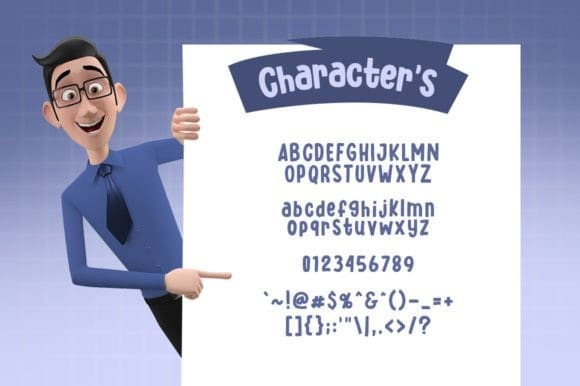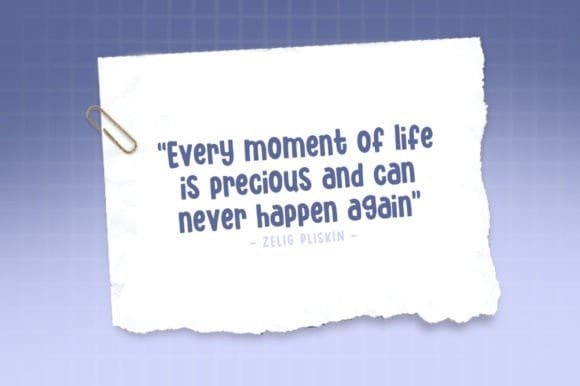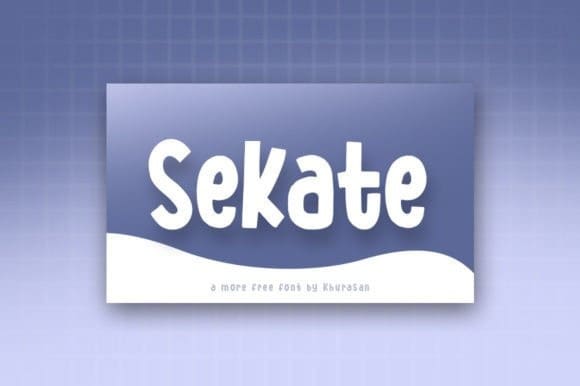
Sekate Font is a modern and fancy display font perfect for posters, logos, magazines, book covers, banners, and many more! Get this amazing freebie, and use it to create lovely designs!